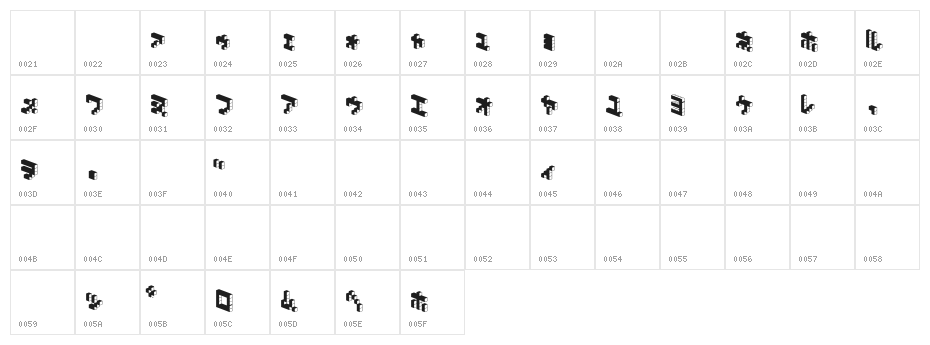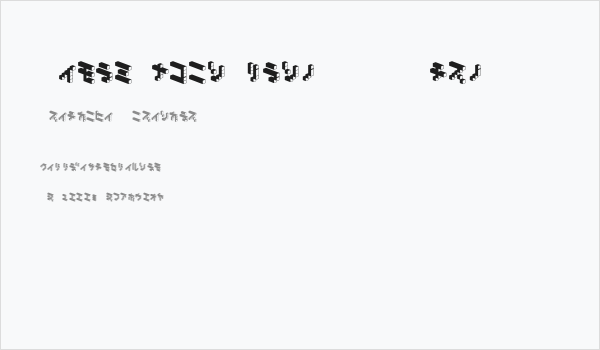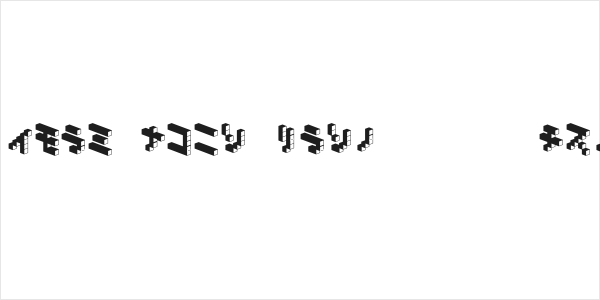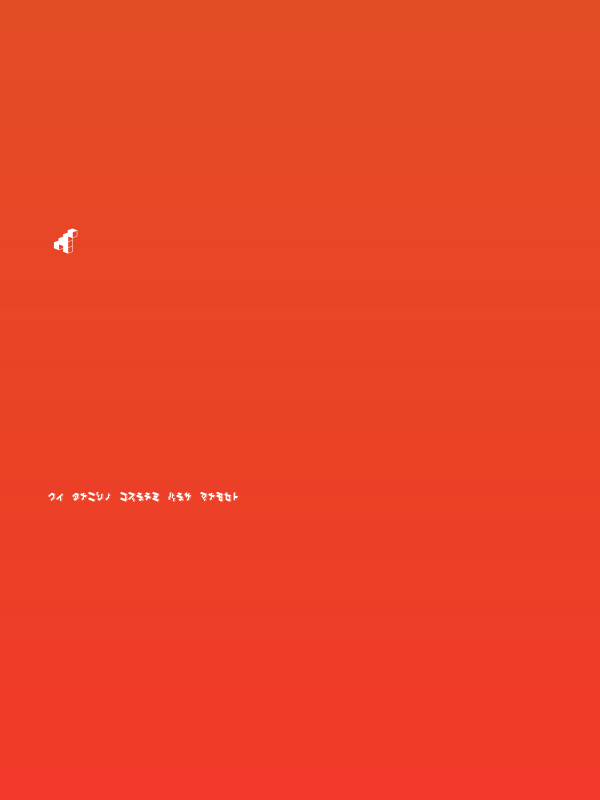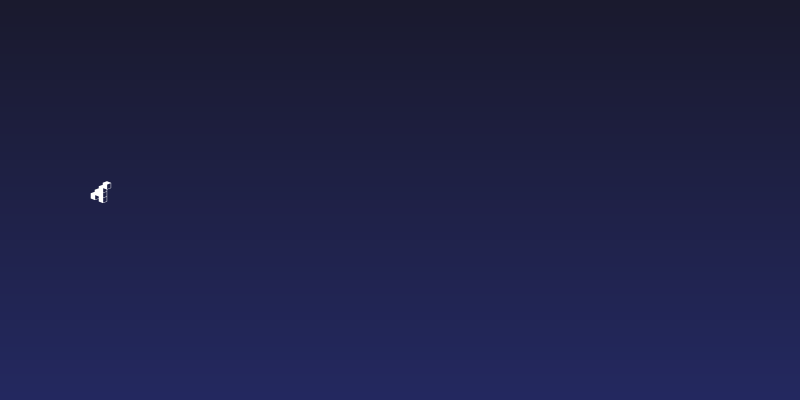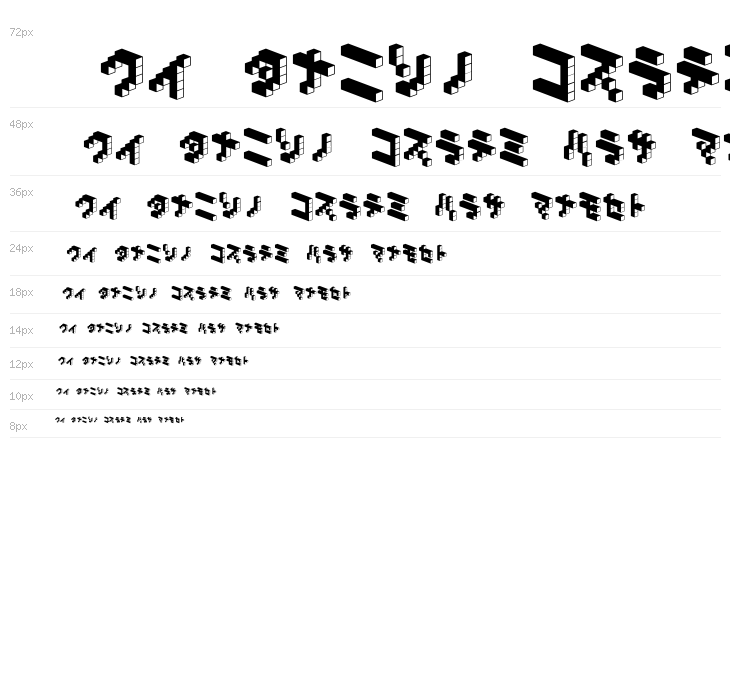
DemonCubicBlock NKP Dark Font
DemonCubicBlock NKP Dark Description
This font features a bold, three-dimensional block style that gives each character a cubic appearance. The letters are constructed with a strong geometric influence, creating a sense of depth and solidity. The design is reminiscent of pixel art, with each character appearing as if built from small cubes. This style is highly decorative and eye-catching, making it suitable for projects that require a striking visual impact. The font's unique structure can add a playful yet robust element to any design, making it ideal for creative and modern applications.
| Proposed Projects | Ideal for video game graphics, tech-themed posters, futuristic branding, and digital art projects. |